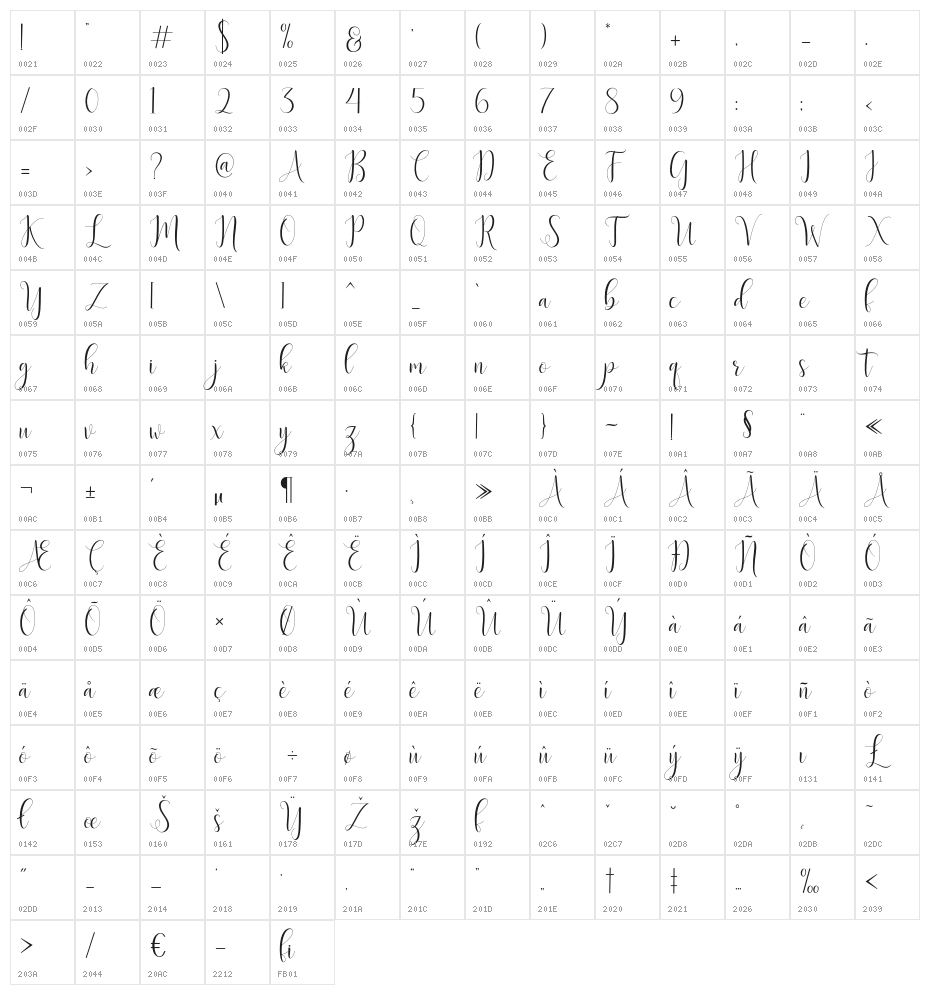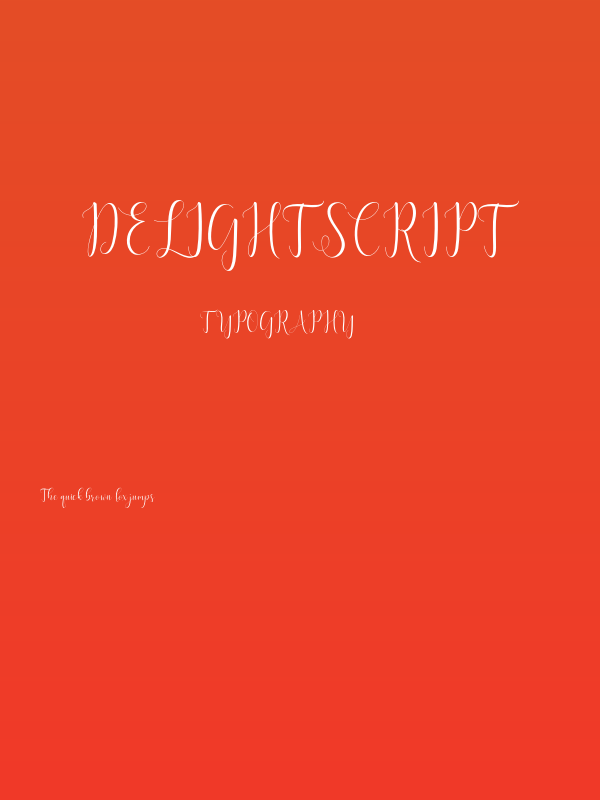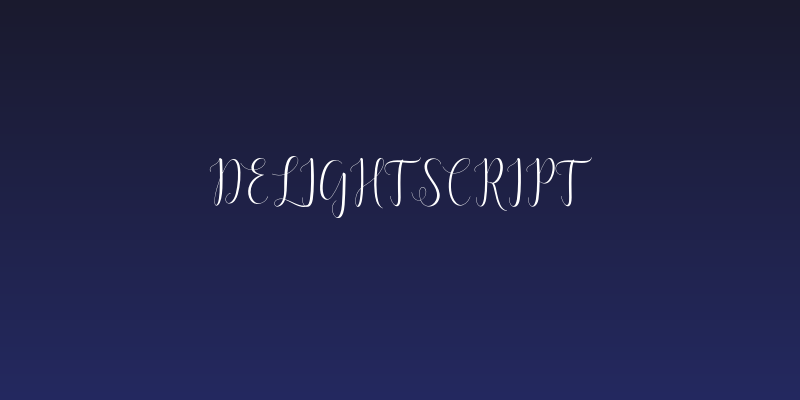
DelightScript Font
DelightScript Description
This elegant script font features a flowing, cursive style with graceful loops and swashes. The uppercase letters are tall and slender, with a slight slant that adds a sense of motion and fluidity. The lowercase letters are equally graceful, with smooth, connected strokes that create a harmonious look. The numerals are consistent with the overall style, maintaining the same elegant curves. Special characters are designed with the same attention to detail, ensuring they blend seamlessly with the letters and numbers. This font exudes sophistication and charm, making it ideal for projects that require a touch of elegance.
| Overall Style | Elegant |
| Use Case | Logos, Invitations, Decorative text |
| Proposed Projects | Wedding invitations, luxury branding, greeting cards, and elegant packaging. |